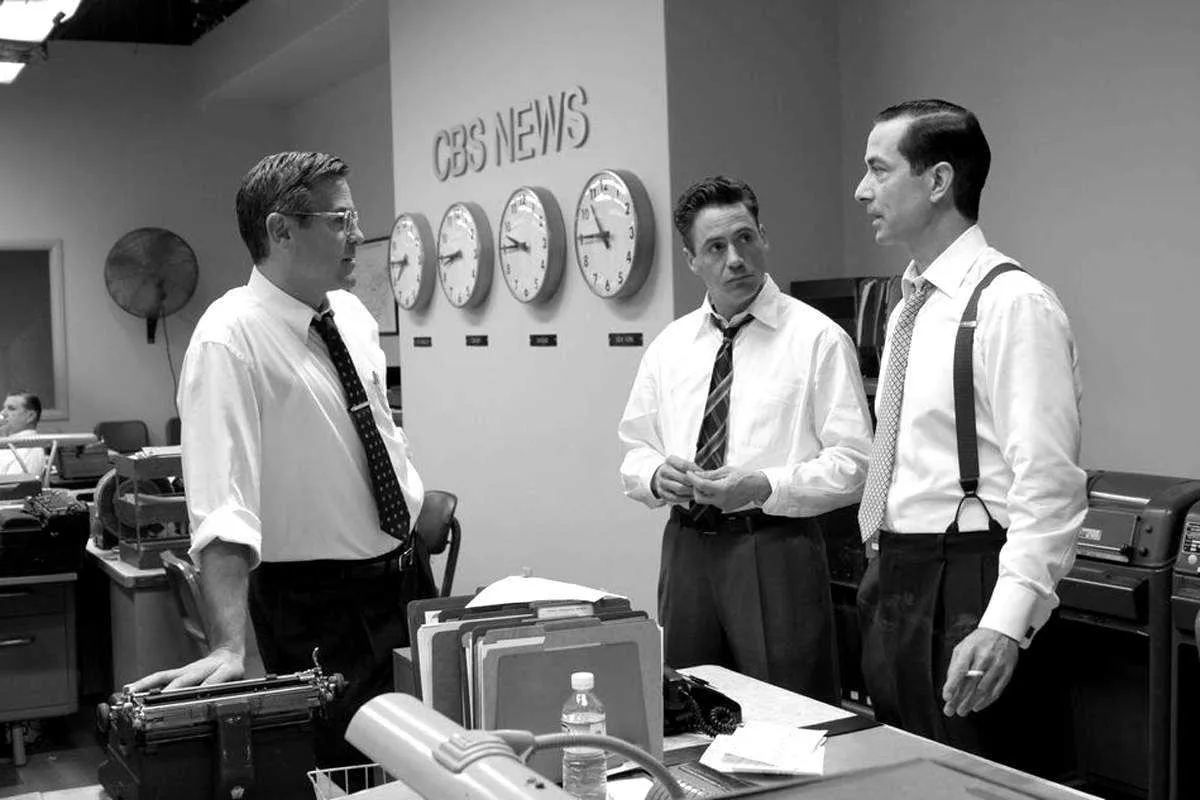
Good Article, Shame About “Good Night”
I was very happy to be included in a short article in today’s New York Times Good Film, Shame About the Helvetica about designers who notice anachronistic font choices in films, but I was a bit taken aback when I received an email first thing this morning from the art director of Good Night, And Good Luck. She pointed out that Helvetica was not used in the film, contrary to what was claimed in the article. She said, rather, that the sign shown in the example frame was set in Akzidenz Grotesk, a face which predated (and in fact was the basis for) Helvetica, and that this choice was based on extensive research of CBS’s graphic design during the period depicted in the film.
This is no skin off my nose since I have not made any comments (yet) about the use of type in Good Night, And Good Luck. The comment was made by graphic designer and fellow font flub finder Michael Bierut, who, along with Scott Stowell and myself, is quoted in the article. Judging from the still shown in the article, I might have come to the same conclusion. As it happens, I missed the film when it was in theaters and will have to wait for the DVD release to see for myself.
If what she says is true (and she was very adamant about it), it is very unfortunate that Good Night, And Good Luck was chosen as the lead example in the article. Especially since its art director appears to be one of the rare people working in film who cares about getting the type details right.
Update: Thanks to some detective work by Stephen Coles, as reported at The Design Observer and Typophile.com, it has been confirmed that Good Night, And Good Luck really does use Akzidenz Grotesk.